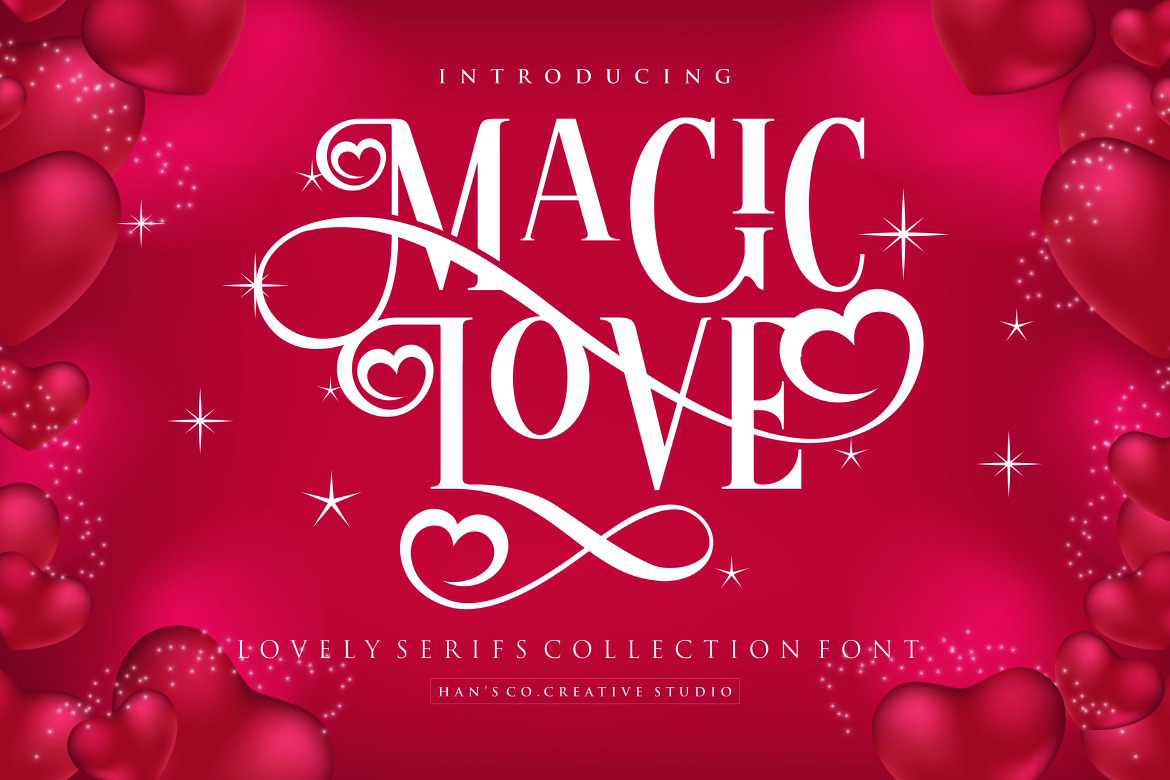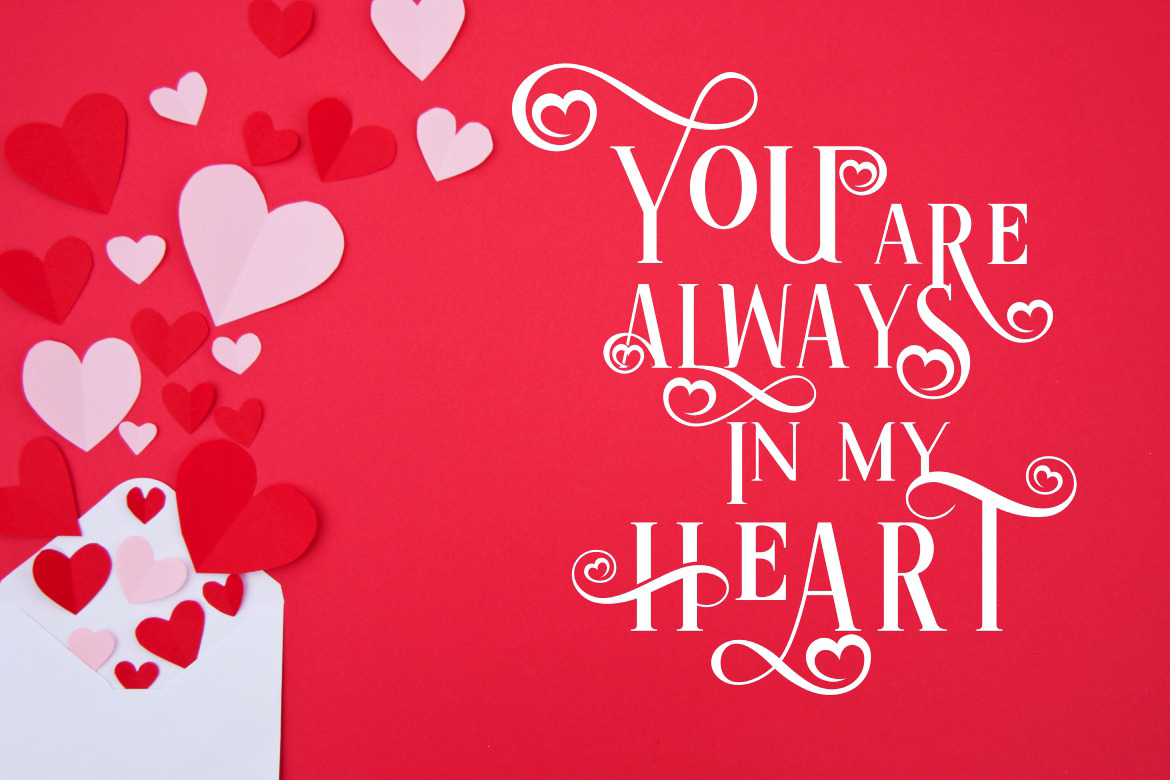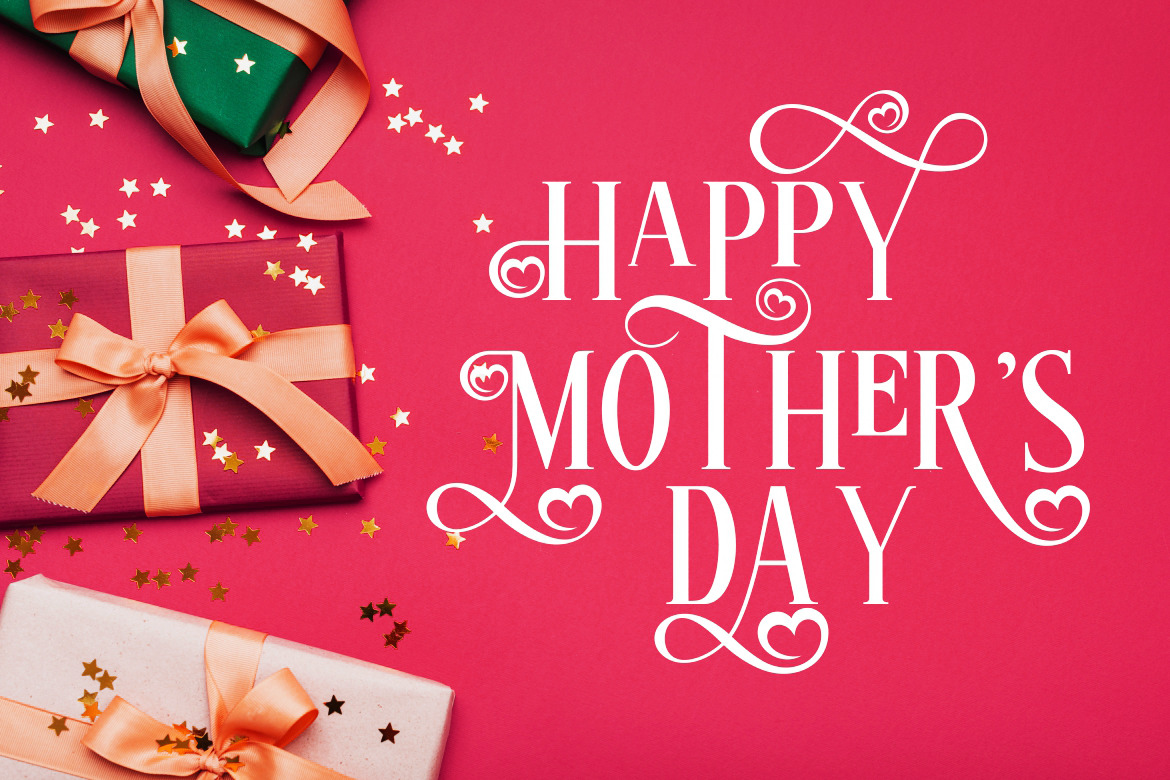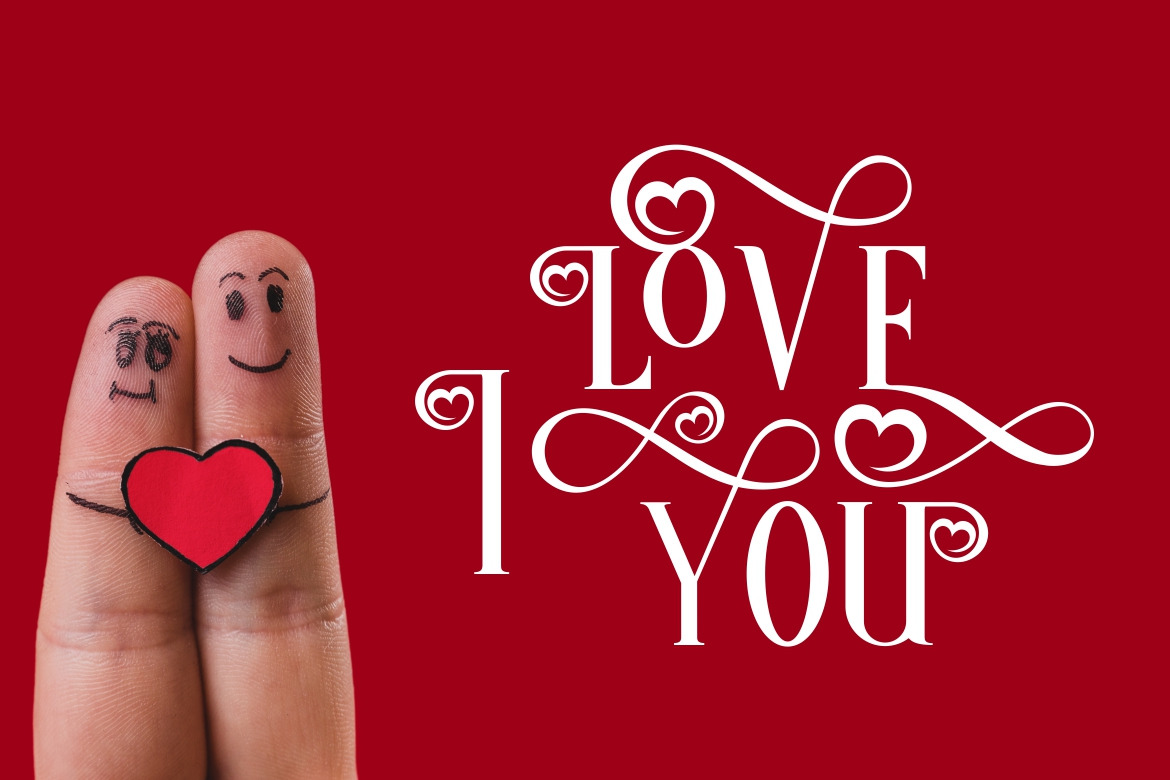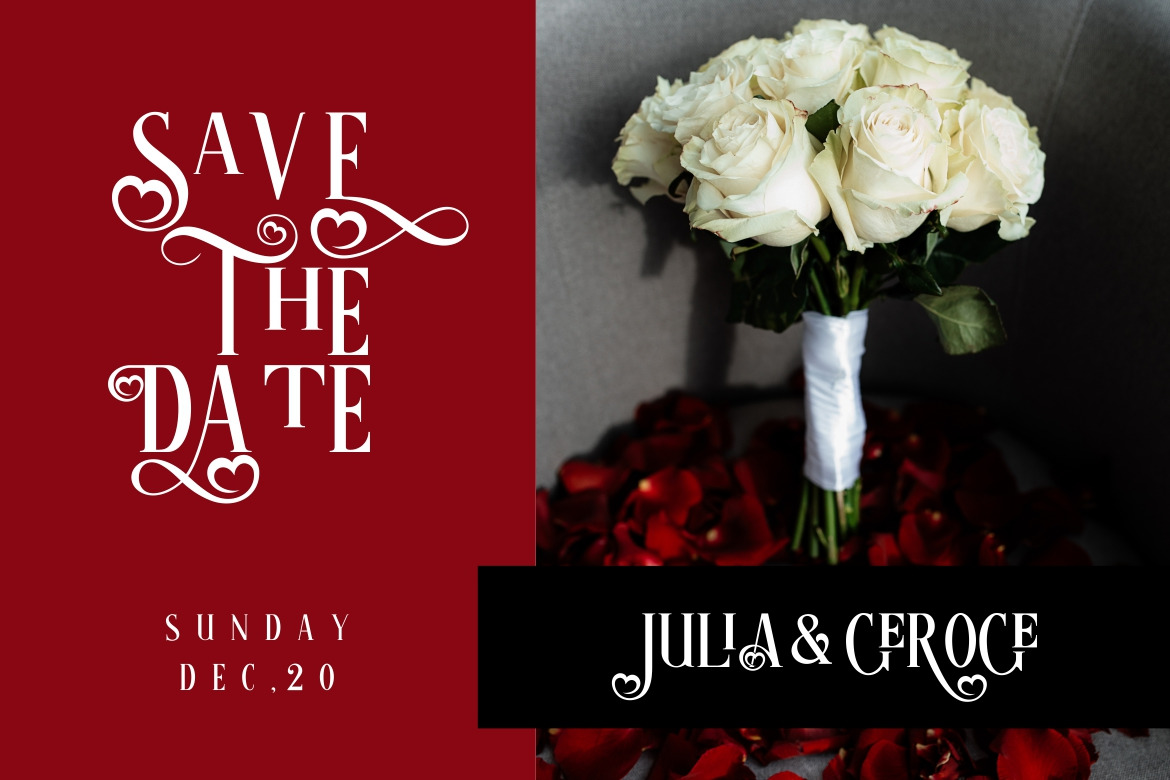
Magic Love Font
Magic Love is a curly, fun and lovely serif font. This font is another style of " Magic Sparkle Font". Alternative and ligature characters are also available. How to use it, if you use Adobe / Corel Draw you just block one of the letters and an arrow will appear under the letter, and you can replace it with alternative characters. any question? please contact me.